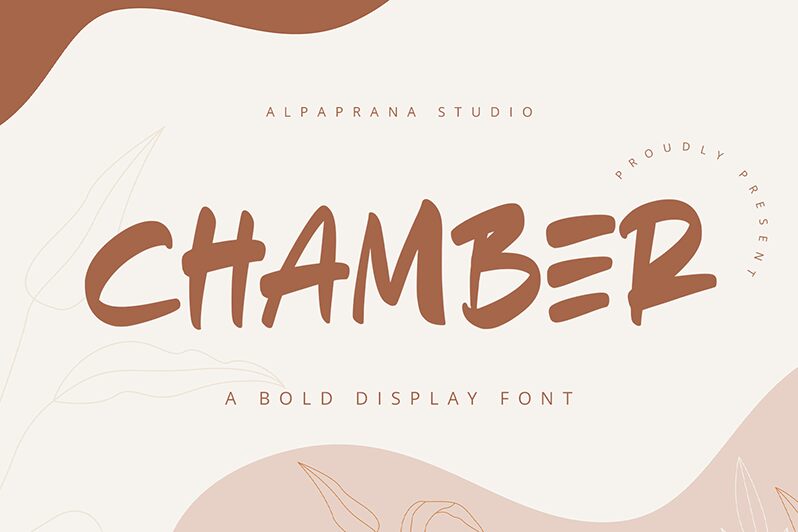
Chamber
Chamber font from Alpaprana Studio is a bold brush style that commands attention with its vibrant, artistic flair. The font's dynamic strokes and playful curves add a human touch, making it a standout choice for creative projects. Its bold presence is perfect for headlines, posters, and branding that require an energetic and distinctive look.
Chamber font thrives in designs where personality is key. Whether you're crafting eye-catching social media graphics or unique event invitations, this free font offers versatility without compromising on aesthetic appeal. Download Chamber today to transform ordinary text into extraordinary statements.